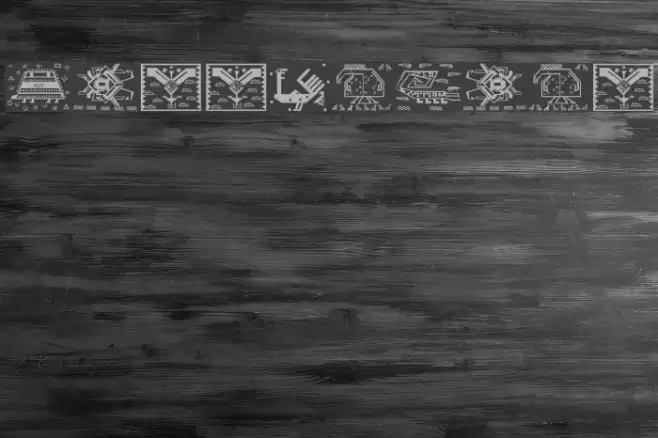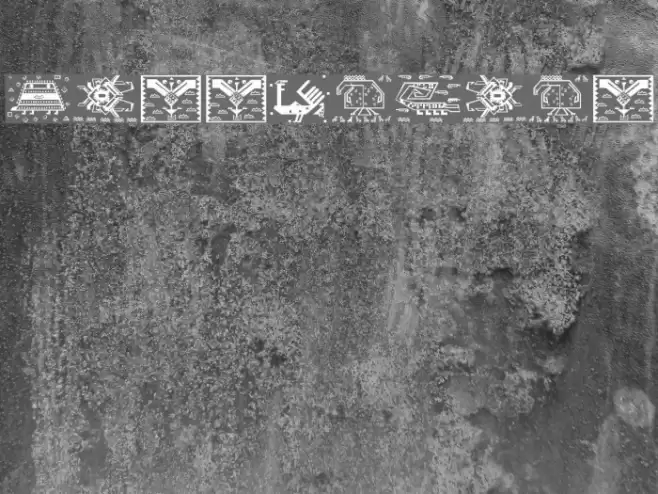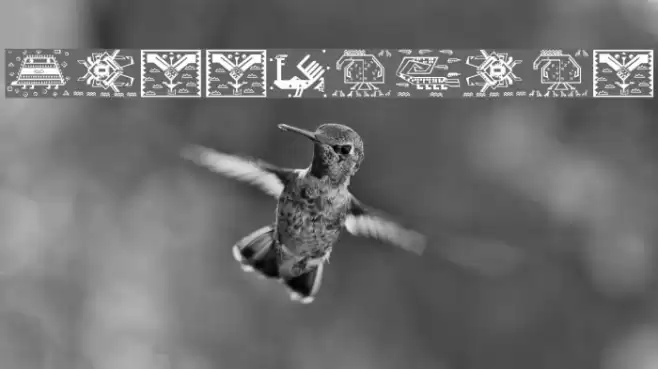
PatternArt Font
PatternArt Description
Highly decorative font featuring intricate, abstract, and geometric patterns inspired by folk art or tribal motifs, with each character resembling a unique piece of artwork or pictogram.
| Overall Style | Decorative, Folk Art, Abstract |
| Use Case | Logos, Headlines, Posters, Artistic Projects |
| Proposed Projects | Posters, album covers, branding for cultural events, art exhibitions, decorative headings, creative packaging. |